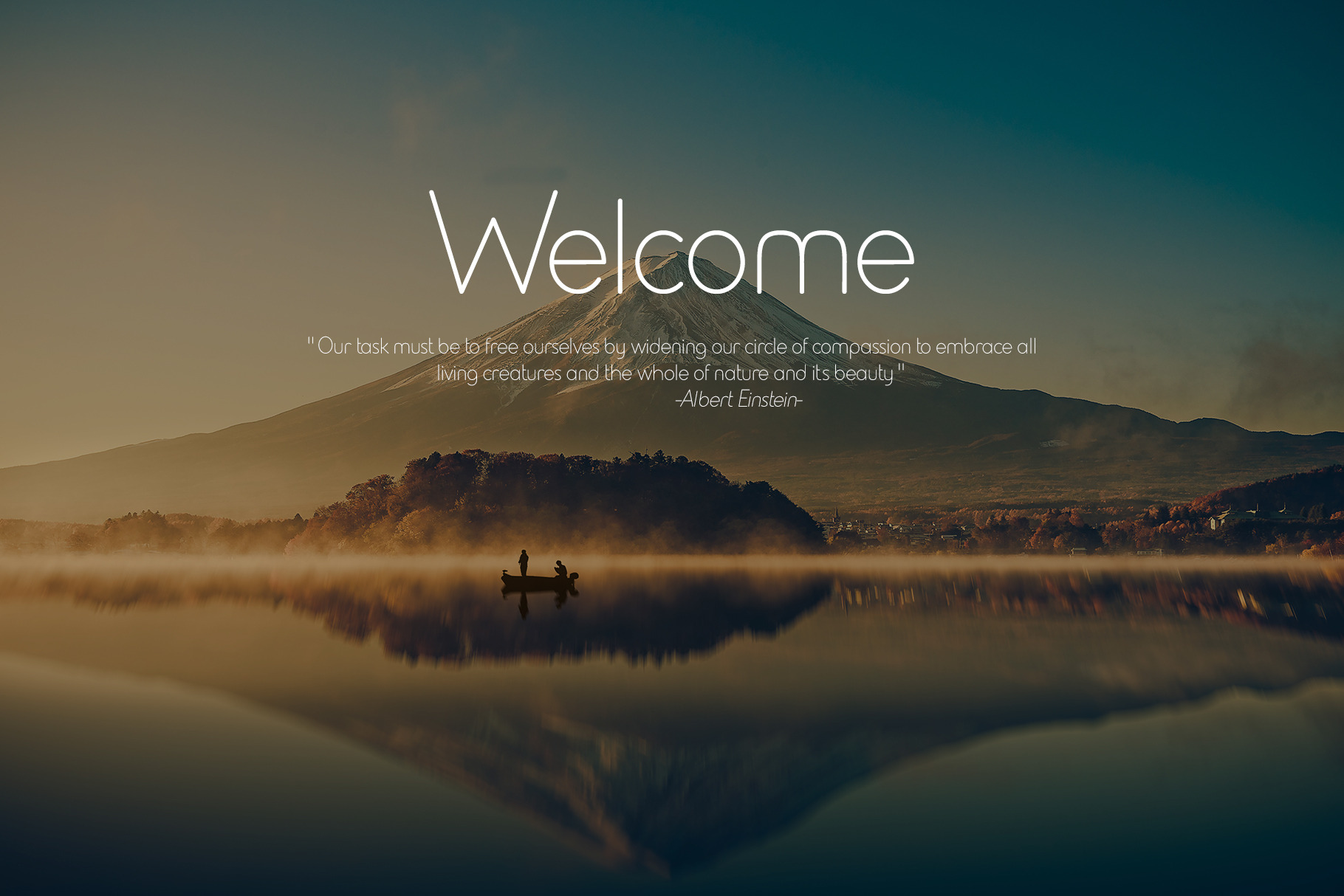
NN2020 Modern, rounded, simple font
Here is my new font, NN2020. A modern, rounded, simple font with uppercase & lowercase letters, numbers and many special characters, plus 3 currency symbols as you can see in the image.
You can use this font to write in English, German, Czech, Spanish, French etc.
3 weights, 6 styles. Thank you for your support so far, I hope you like this font, too.